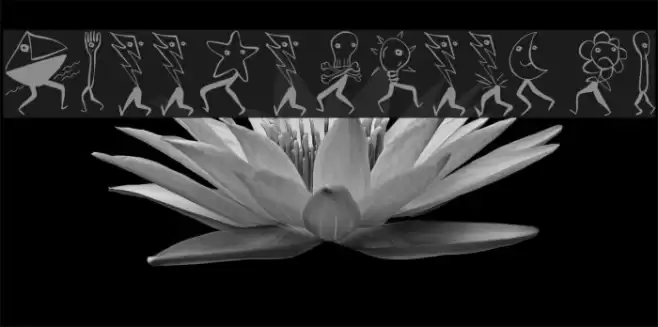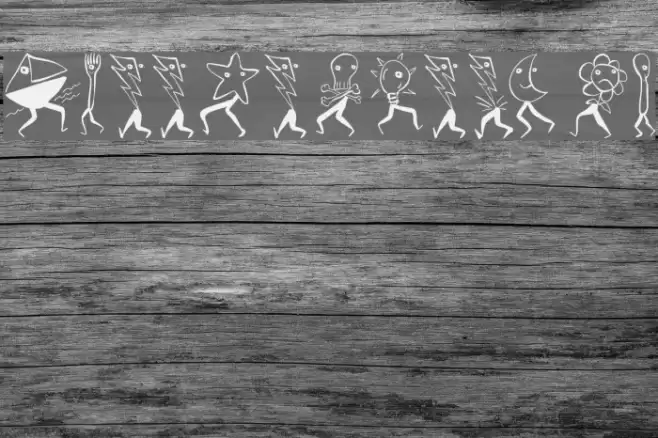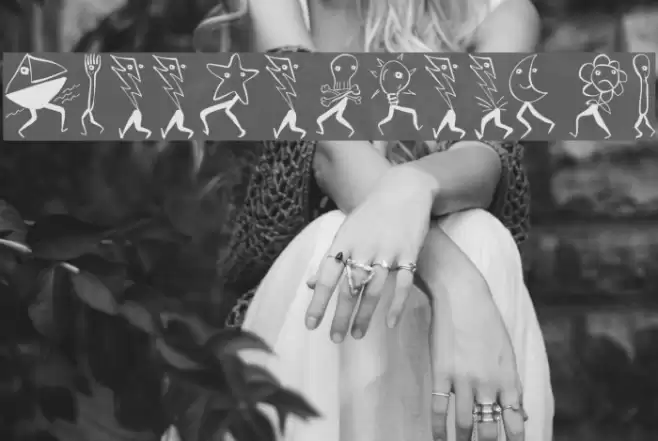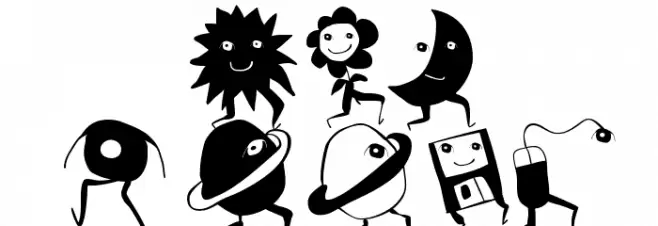
RunningGnomes Font
RunningGnomes Description
A whimsical, highly decorative dingbat font featuring playful, hand-drawn characters and objects with expressive faces and running legs, each glyph representing a unique cartoon-like figure rather than traditional letters or numbers.
Playful dingbat font with running cartoon characters and objects from Uncategorized fonts.
- Proposed Projects: Children’s books, playful branding, party invitations, educational materials, creative posters.
- Overall Style: Decorative, Whimsical, Playful
- Use Case: Illustrative elements, Decorative accents, Themed graphics